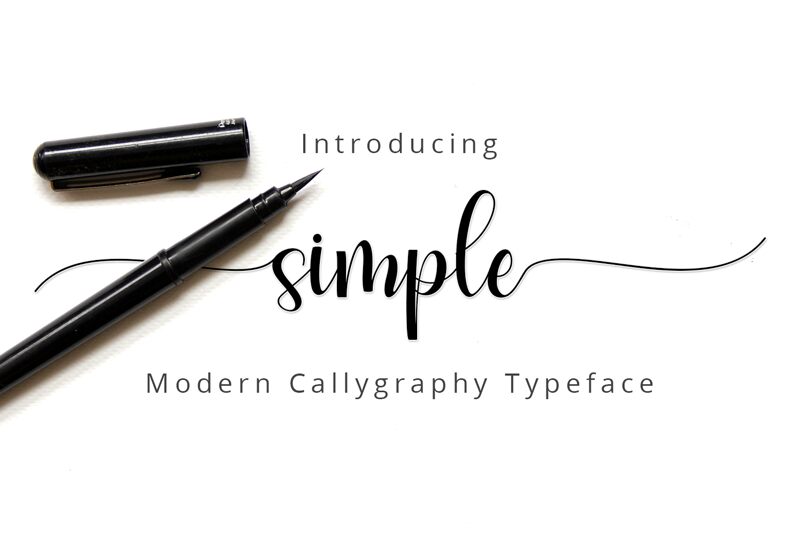
SimpleScript
Simple Script by Zulkhairilettering is a mesmerizing calligraphy font that effortlessly combines elegance with simplicity. With its semi-light weight, this font exudes a delicate and refined vibe, perfect for projects that require a touch of sophistication. Whether you're designing wedding invitations, elegant branding materials, or creating stunning social media graphics, Simple Script adds a graceful charm to any project. Its flowing lines and graceful curves will captivate your audience and elevate your designs to new heights. Embrace the beauty of calligraphy with Simple Script and watch your creations come to life.